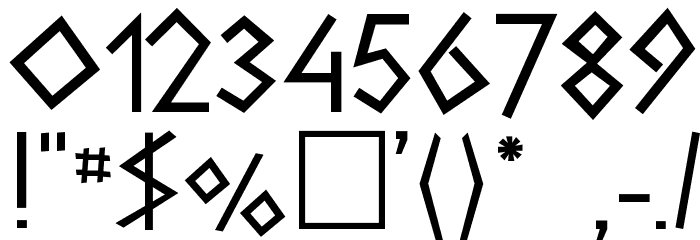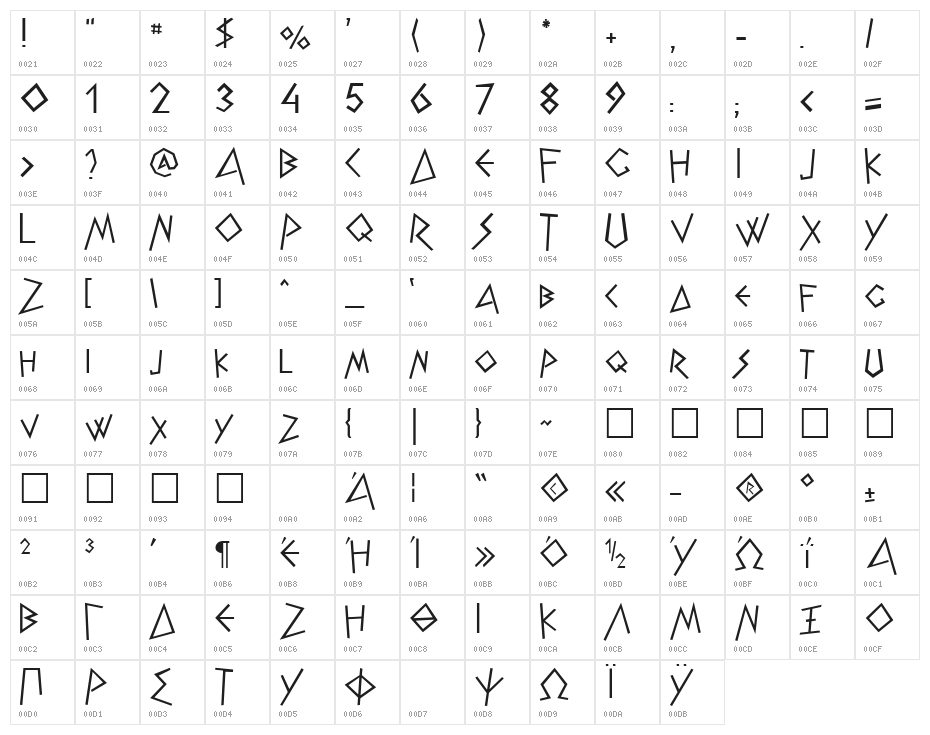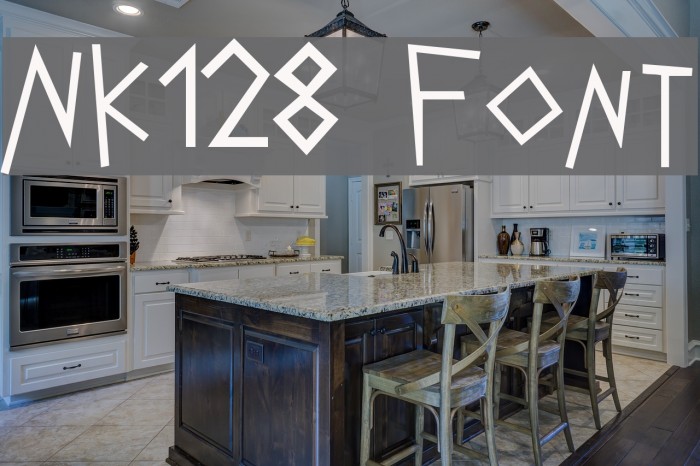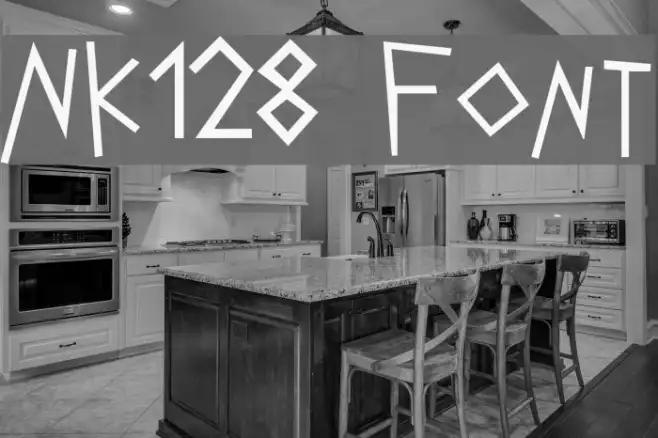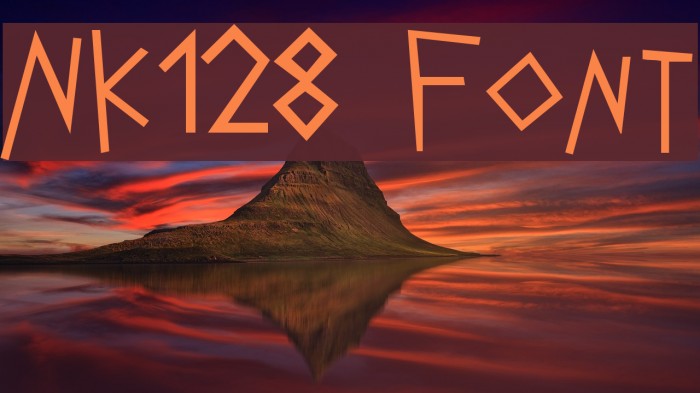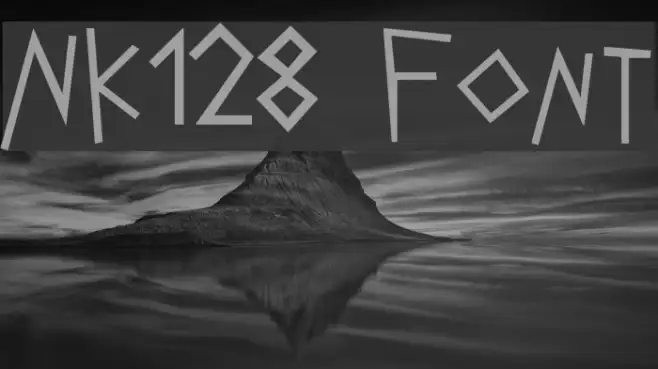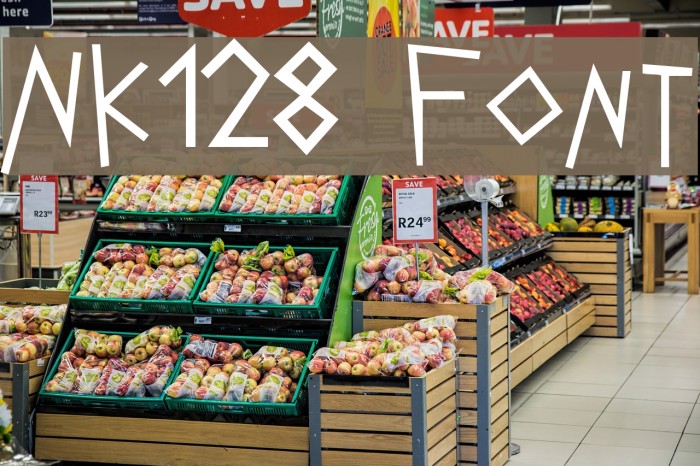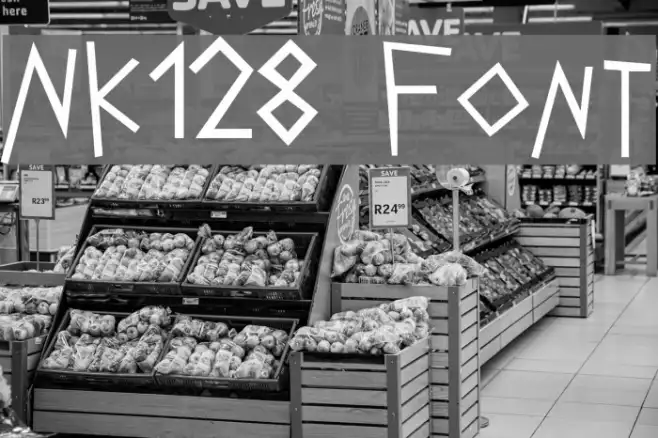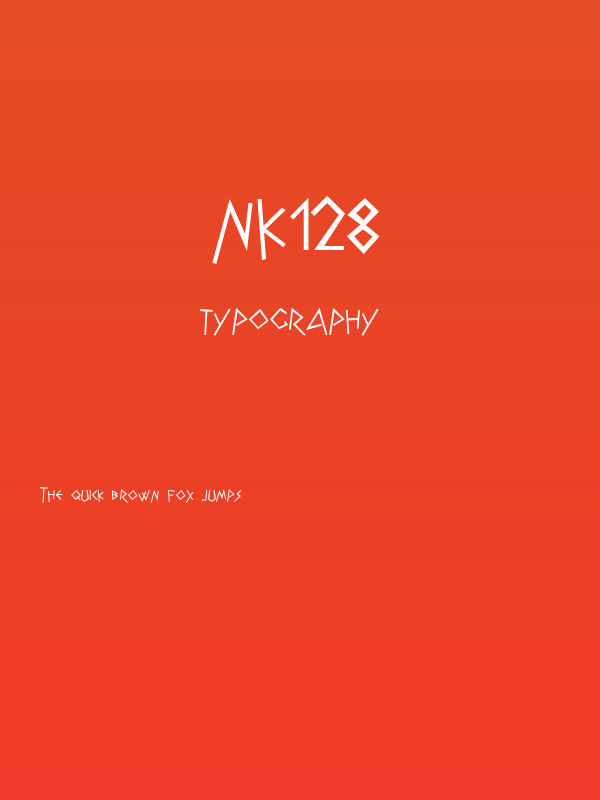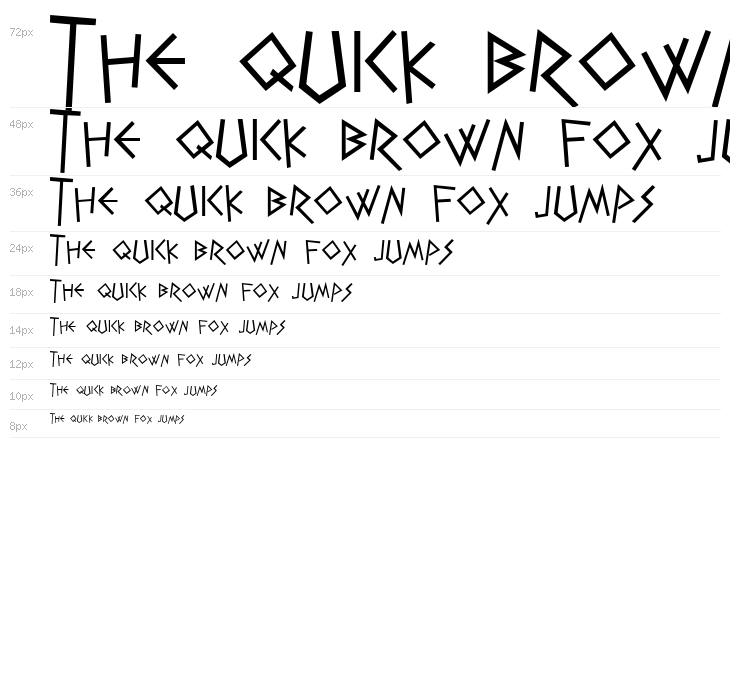
NK128 Font
NK128 Description
This font features a bold and angular design with a geometric flair, characterized by sharp edges and triangular elements. The uppercase and lowercase letters maintain a consistent style, emphasizing straight lines and pointed angles. Numbers and special characters follow the same aesthetic, offering a cohesive and striking appearance. The font's unique structure makes it stand out, suitable for projects that require a modern and edgy look. Its boldness and distinct shapes make it ideal for attention-grabbing designs.